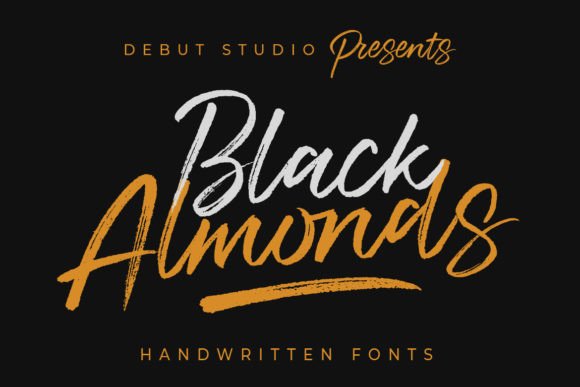
Welcome to the enchanting world of Black Almonds Font - a joyous dance of handwritten strokes, crafted to infuse your designs with a touch of playful allure. As a member of the expressive script font family, Black Almonds cascades across the page like a vibrant waterfall of ink, promising to captivate your audience with its enthralling presence.
Immerse yourself in the world of Black Almonds, a font specifically designed to make your posters sing. Its bold strokes and dynamic flow bring an irresistible charm to any headline, making your words leap off the page with a joyous energy. With Black Almonds, your posters are destined to become captivating masterpieces that linger in the minds of all who behold them.
Crafted with meticulous care by Debut Studio, Black Almonds is more than just a font; it's an artistic expression waiting to grace your creative endeavors. Let your imagination soar as you explore the endless possibilities of this remarkable font. Transform your designs into works of art, create social media posts that pop, or add a touch of whimsy to your branding materials. The versatility of Black Almonds knows no bounds.
Step into the spotlight with Black Almonds and let your creativity shine. Its friendly and approachable demeanor makes it the perfect font for projects that demand an inviting and joyful tone. Whether you're designing a playful logo, crafting a vibrant flyer, or adding a personal touch to your wedding invitations, Black Almonds will effortlessly elevate your designs to new heights.
So, if you seek a font that ignites your imagination and captivates your audience, look no further than Black Almonds. It's a font that dares to be different, a font that will make your designs stand out from the crowd. Embrace the charm of Black Almonds today and embark on a creative journey that's sure to leave a lasting impression.